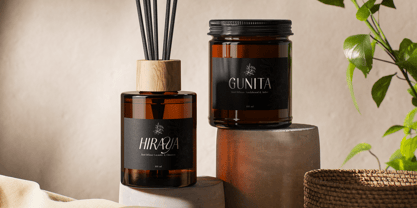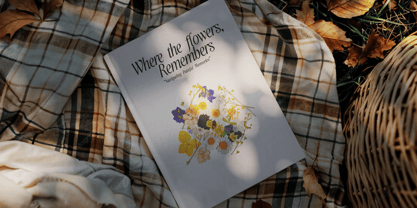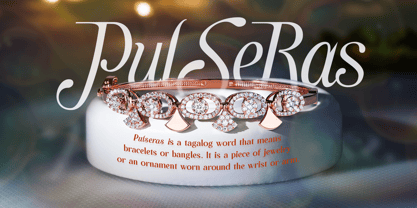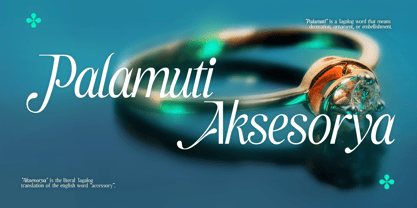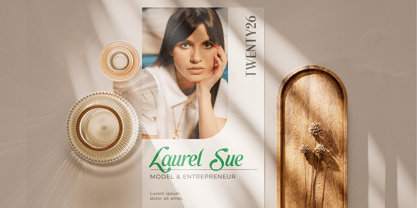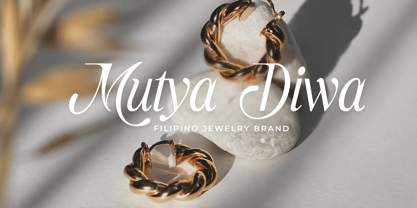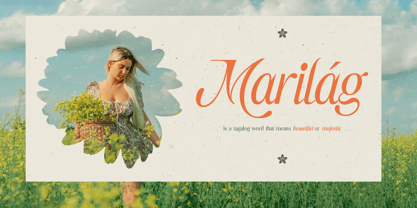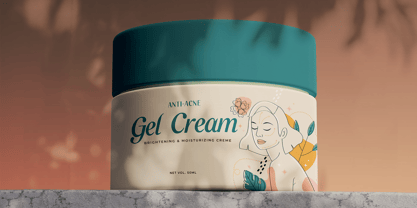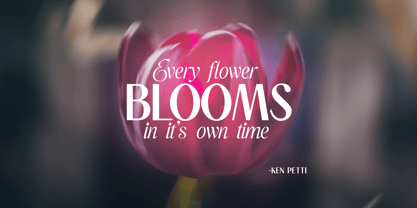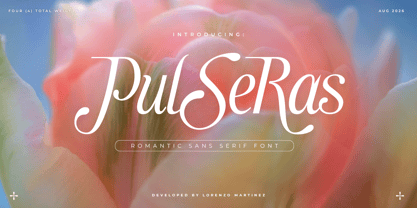
Pulseras
The Pulseras Font Family was designed by Lorenzo Gabriel Martinez and published by Lurinzu Studios. Pulseras contains 4 styles and family package options. More about this family
Pulseras is a romantic display typeface inspired by vintage elegance, Filipino sentiment, and the timeless beauty of love and remembrance.
With graceful high-contrast serifs, expressive italics, and distinctive stylistic alternates, Pulseras brings an elegant and nostalgic character to fashion, perfume, jewelry, editorial, wedding, packaging, branding, and luxury design.
Designed and crafted by Lurinzu Studios in the Philippines, Pulseras combines classical romance with a contemporary typographic sensibility, giving designers the flexibility to create both refined and expressive compositions.